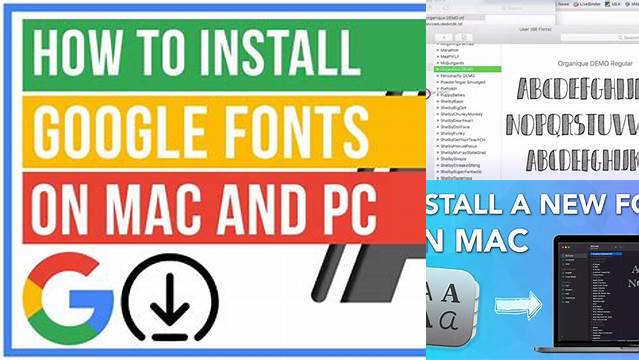
H2: Finding Your Perfect Font on Google Fonts
Alright, first things first: we need to find some fonts! Head over to the Google Fonts website (https://fonts.google.com/). It's a seriously user-friendly site, so navigating it is super easy. You'll see a massive library of fonts, all neatly organized. Now, here's the fun part: finding the perfect font for your project. You can browse by category, like serif, sans-serif, display, handwriting, and monospace. These categories help narrow down your choices based on the general style you're aiming for. Think about the feeling you want to evoke. Are you going for a classic, elegant look (serif fonts often do the trick)? Or maybe something modern and clean (sans-serifs are your best bet)?
And here's a pro-tip: don't just look at the individual font; consider how it looks in different sizes and weights. Each font on Google Fonts typically comes with various styles (e.g., regular, bold, italic, light). Experimenting with these variations gives you a better idea of how the font will look in your final design. Furthermore, the site also allows you to type in your own text to preview what the font will look like. This is incredibly helpful for seeing how the font renders your specific words or phrases. You can also adjust the size of the preview text and switch between light and dark modes to see how the font appears on different backgrounds. Take your time, explore, and have fun with it. Choosing the right font can dramatically impact the look and feel of your project, so it’s worth the extra effort. Consider the context in which your font will be used. Is it for body text, headings, or both? Some fonts are excellent for large headings but may be less readable in smaller sizes. Others are perfect for body text but might not have the visual impact you need for headlines. The right font makes all the difference!
H3: Exploring Font Categories and Styles
Let's take a deeper dive into the world of font categories and styles. Google Fonts offers a diverse range of categories, each with its unique characteristics and suitable applications. Serif fonts, characterized by the small strokes (serifs) at the ends of letters, often convey a sense of tradition, elegance, and formality. They are commonly used in body text for books, magazines, and other long-form content, as they tend to be very readable. Examples include Times New Roman, Georgia, and Playfair Display. Sans-serif fonts, on the other hand, lack these serifs, giving them a clean, modern, and minimalist appearance. They are popular choices for websites, user interfaces, and headlines, as they tend to be more legible on screens. Popular sans-serif fonts include Roboto, Open Sans, and Lato. Display fonts are designed for large sizes and attention-grabbing headlines, posters, and logos. They are often more decorative and can be quite bold and expressive. Examples include Bangers, Luckiest Guy, and Anton. Handwriting fonts mimic the appearance of handwritten text, adding a personal and informal touch. They are frequently used in invitations, greeting cards, and designs where a more casual feel is desired. Examples include Pacifico, Homemade Apple, and Caveat. Lastly, Monospace fonts have letters and characters that each occupy the same horizontal space, making them ideal for coding, terminal displays, and situations where precise alignment is important. Examples include Courier New and Roboto Mono.
Within each category, you'll find a variety of styles, such as regular, bold, italic, light, and extra bold. These styles allow you to add emphasis, hierarchy, and visual interest to your text. For example, using bold for headings, italic for emphasis, and varying the weight of your text can greatly improve readability and create a more visually appealing design. When selecting a font, consider the context in which it will be used. Is it for a website, a printed document, or a presentation? Certain fonts are better suited for specific mediums. Web fonts need to be optimized for screen readability, while print fonts must be clear and legible at various sizes. Experiment with different combinations of fonts and styles to find what works best for your project. Keep in mind that fonts can significantly impact the overall look and feel of your design, so choosing the right ones is crucial for conveying your intended message and engaging your audience. Understanding the different categories and styles of fonts is key to selecting the perfect font for your project. Considering how to download Google Fonts on Mac ensures you have access to all the perfect font choices.